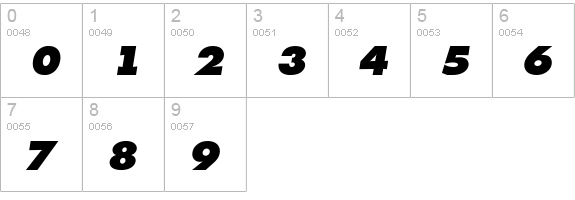
Isomar Display Expanded SSi Expanded Italic Font Details
Isomar Display Expanded SSi Expanded Italic is a distinctive, extended-width, italic variant in the Isomar typeface family \xE2\x80\x94 well suited to design and typography projects.
Isomar Display Expanded SSi Expanded Italic font is a stunning and captivating typeface that is sure to make a bold statement. With its unique and sleek design, this font is perfect for creating eye-catching headlines and titles that demand attention. The Isomar Display Expanded SSi Expanded Italic font features an elegant, elongated look with stylish italicized letterforms that exude sophistication and modernity. Its expanded width adds an extra level of impact, making it ideal for use in large-scale designs such as posters, banners, and signage. This font is not only aesthetically pleasing but also highly versatile, lending itself well to a wide range of design projects. Whether you're working on a branding campaign, magazine layout, or website design, the Isomar Display Expanded SSi Expanded Italic font is sure to elevate your work to new heights. What's more, this fantastic font is completely free! Yes, you read that right. You can download Isomar Display Expanded SSi Expanded Italic font for free at FontsMarket.com. This means you can enjoy the professional and high-quality design of this font without any cost. It's a great opportunity to enhance your design toolkit without breaking the bank. So, why wait? Take advantage of this incredible offer and download the Isomar Display Expanded SSi Expanded Italic font today. With its striking visual appeal and the added bonus of being free, it's a must-have for any designer, artist, or creative individual looking to make a lasting impression. Get yours now and let your creativity soar!